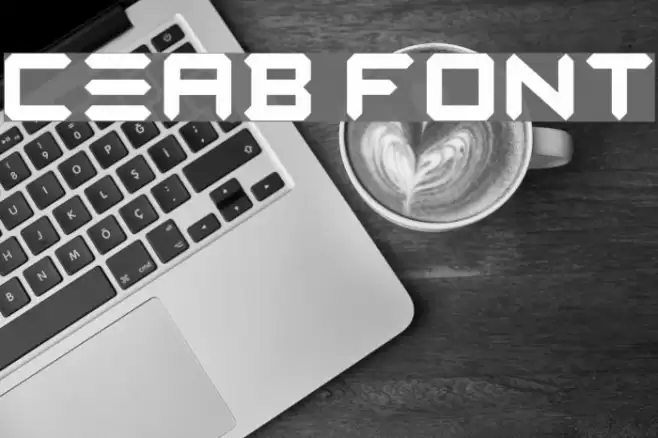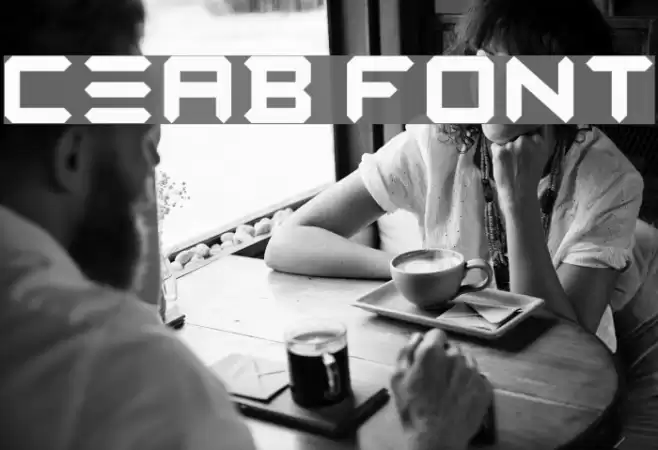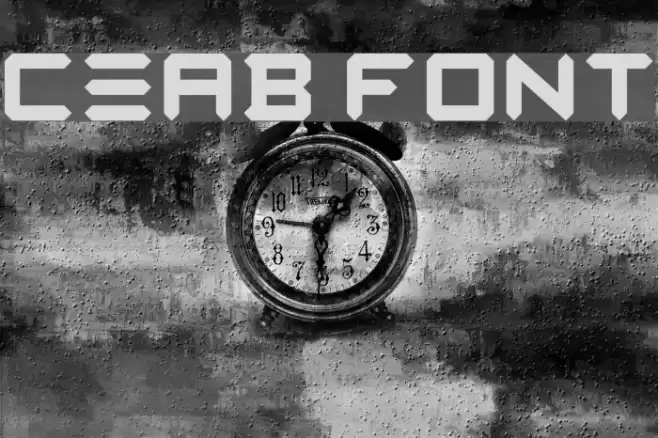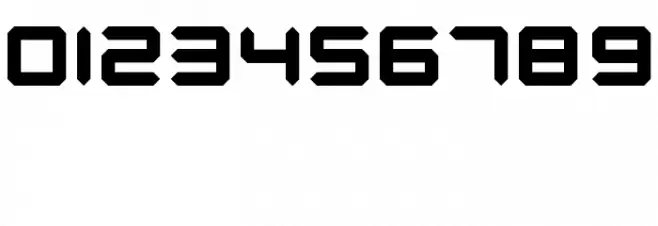
CEAB Font
CEAB Description
This font features a bold, geometric design with a futuristic aesthetic. Each character is constructed with sharp angles and straight lines, creating a sense of precision and modernity. The uppercase letters are uniform in height, while the numbers maintain a consistent style, enhancing readability. The font's unique design elements, such as the distinctive 'E' with parallel horizontal lines, add a creative touch. The overall appearance is clean and structured, making it suitable for projects that require a contemporary and tech-savvy look.
A bold, geometric font with a futuristic and modern design from Uncategorized fonts.
- Proposed Projects: Ideal for technology branding, video game titles, sci-fi movie posters, and digital interfaces.